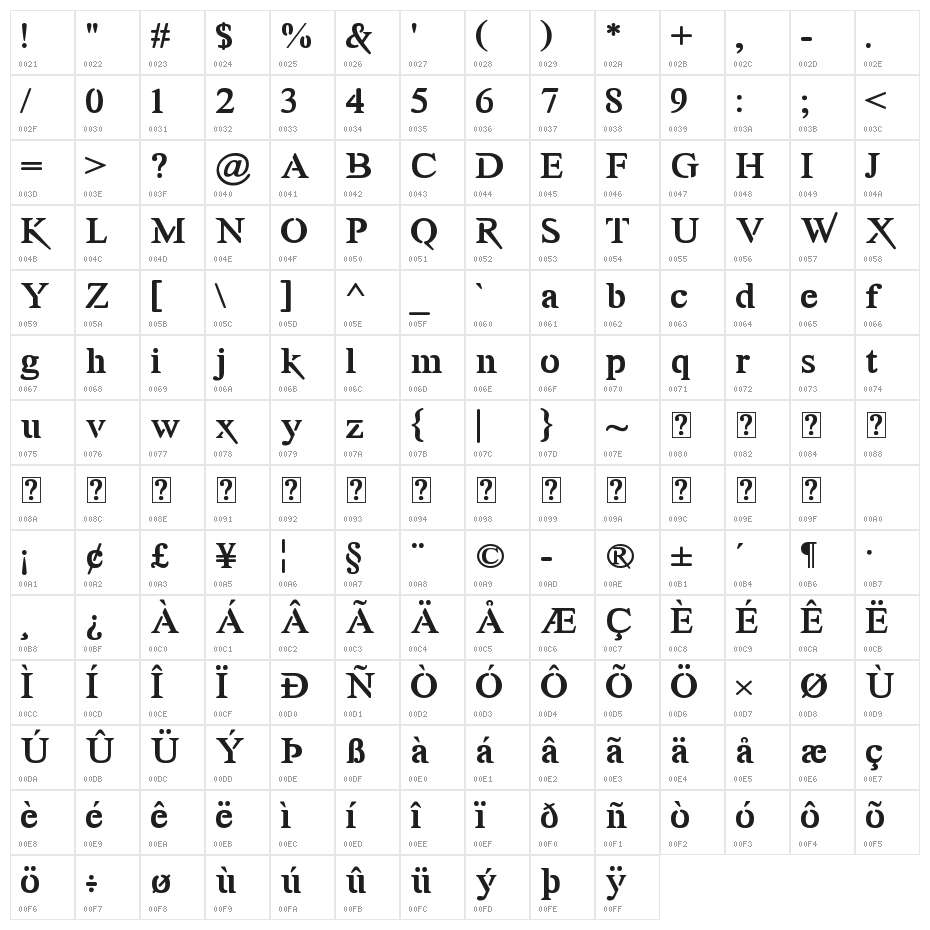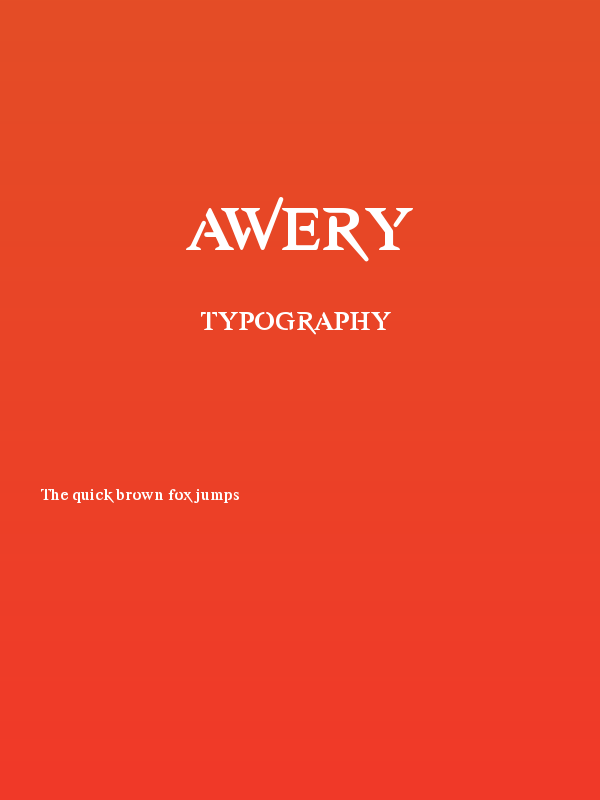
Awery Font
Awery Description
This font features a bold and dynamic serif style with a distinctive flair. The uppercase letters are characterized by sharp serifs and a slightly condensed form, giving them a strong presence. The lowercase letters maintain a consistent style, with rounded edges that contrast with the sharpness of the serifs. The numerals are bold and clear, making them easily readable. Special characters are designed with the same attention to detail, ensuring a cohesive look across all glyphs. This font's unique style makes it suitable for projects that require a touch of elegance and strength.
Overall StyleClassic
Proposed ProjectsIdeal for branding, editorial design, and headlines that require a strong and elegant typeface.